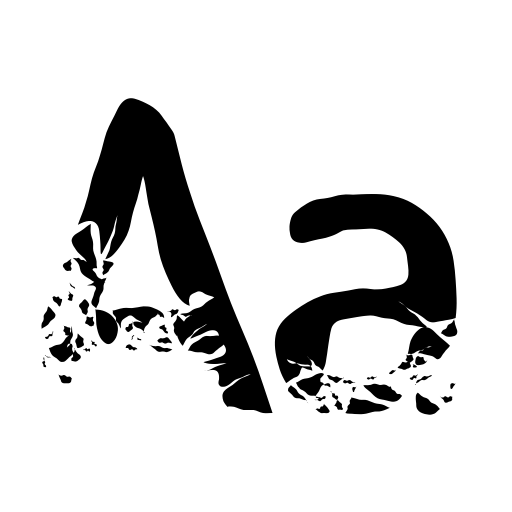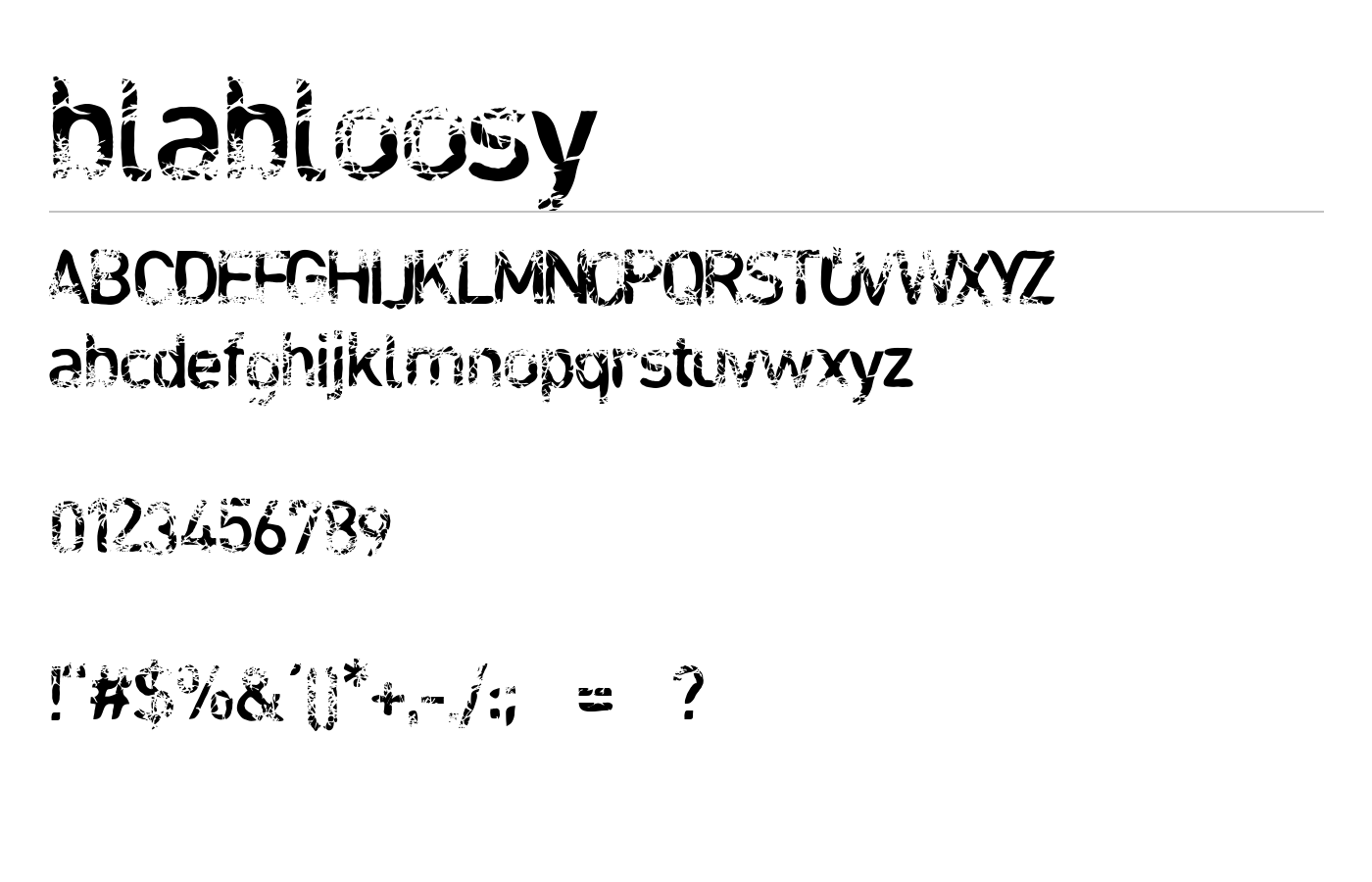
Blabloosy is a distressed, sans-serif display font with a textured, grungy appearance that adds a raw, worn-in character to any design. Its irregular stroke breaks and uneven edges give it a rebellious, edgy vibe, making it ideal for creative, informal, or alternative branding and poster work. This font stands out best in large sizes where its unique texture can be fully appreciated, adding personality to headlines and logos that want to convey authenticity and attitude.
blabloosy Font
About blabloosy Font